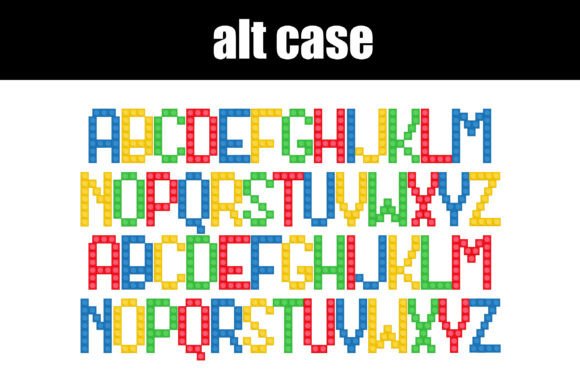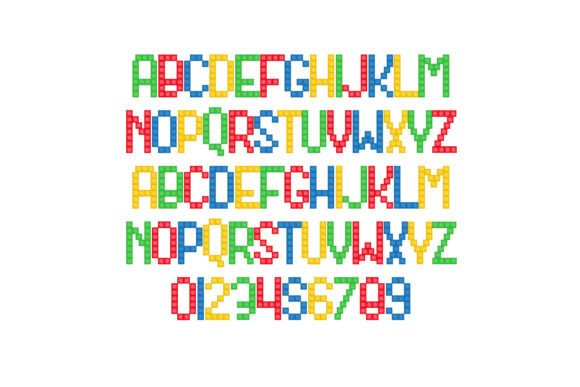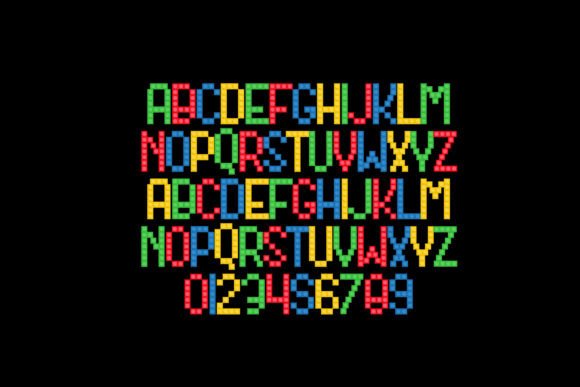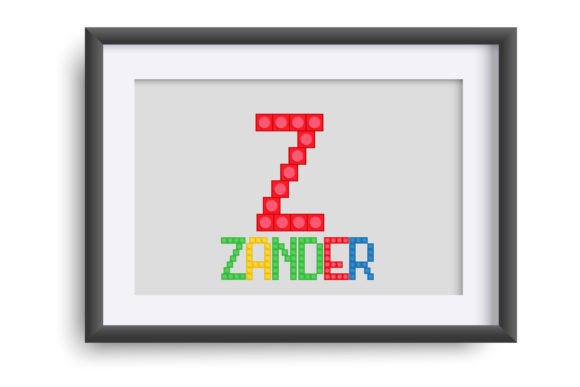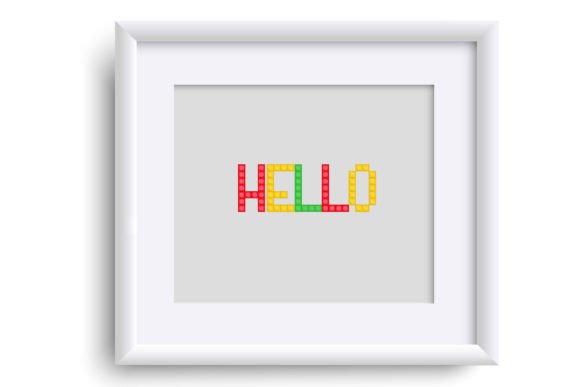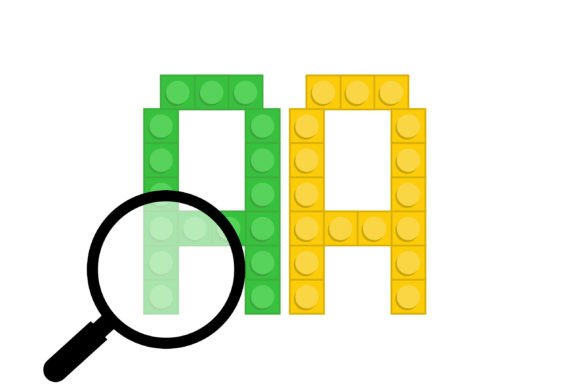
Introducing Builders Too Font: The Ultimate Building Block Font for Designers and Crafters
Are you tired of using the same old fonts for your designs and crafts? Look no further than Builders Too Font, a unique and versatile full-color font that features a simple alphabet made out of building blocks. This innovative font is perfect for titles, displays, posters, and more, and is compatible with a range of programs, including Silhouette Studio.
What is Builders Too Font?
Builders Too Font is a full-color OpenType font that features a simple alphabet made out of building blocks. The font comes in two cases: a standard case and an alternate case with additional colors that can be accessed through your system or Silhouette’s glyph map. This allows you to add a pop of color and creativity to your designs and crafts.
Key Features of Builders Too Font
- Full-color font: Builders Too Font is a full-color OpenType font that features a range of colors to add depth and interest to your designs.
- Simple alphabet: The font features a simple alphabet made out of building blocks, perfect for creating fun and playful designs.
- Alt case with additional colors: The alternate case includes additional colors that can be accessed through your system or Silhouette’s glyph map.
Why Choose Builders Too Font?
Builders Too Font is the perfect choice for designers and crafters who want to add a unique and creative touch to their designs. Here are just a few reasons why:
- Perfect for titles and displays: Builders Too Font is perfect for creating eye-catching titles and displays.
- Adds a pop of color: The font’s full-color design adds a pop of color to your designs and crafts.
Builders Too Font is a unique and versatile full-color font that is perfect for designers and crafters who want to add a creative touch to their designs. With its simple alphabet made out of building blocks and range of colors, this font is perfect for titles, displays, posters, and more. Whether you’re a seasoned designer or a crafter, Builders Too Font is a great choice for anyone looking to add a pop of color and creativity to their designs.